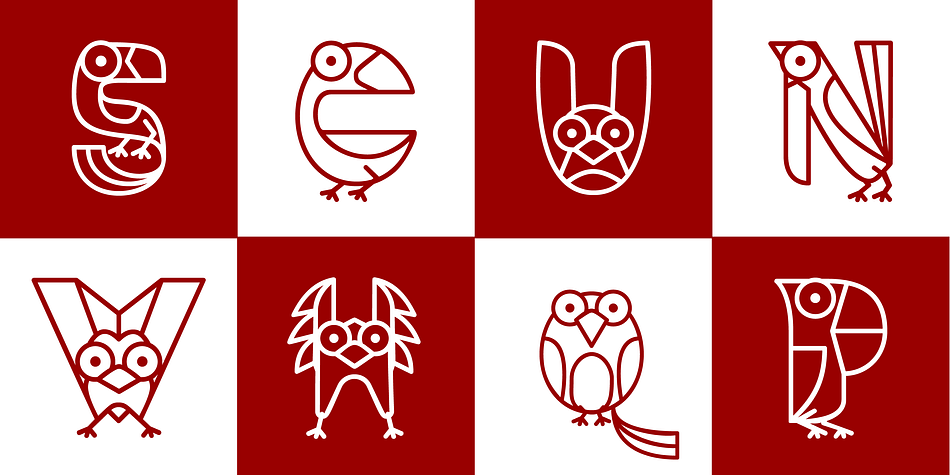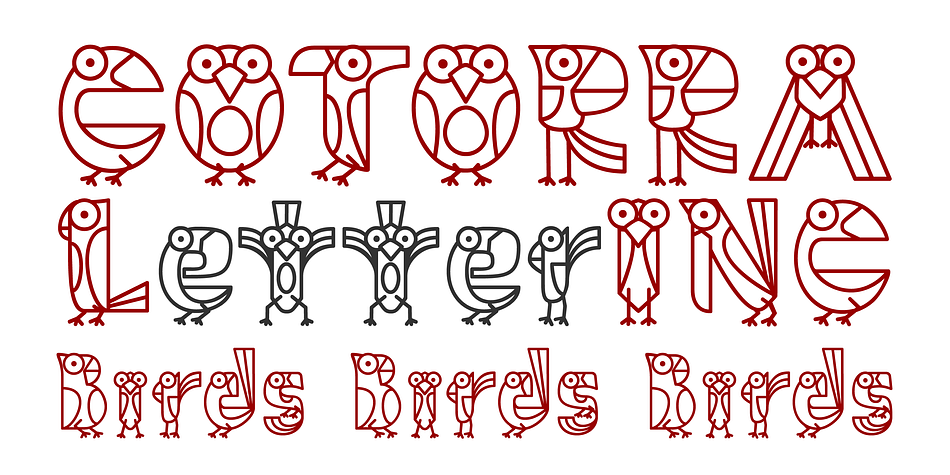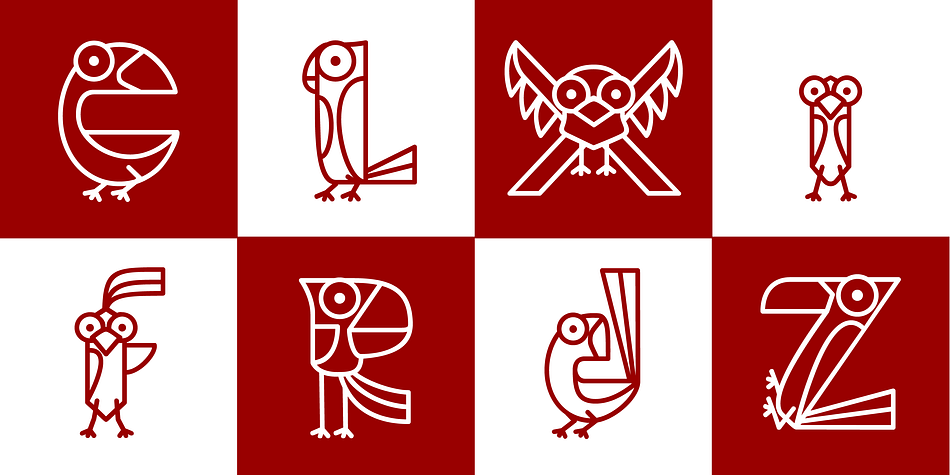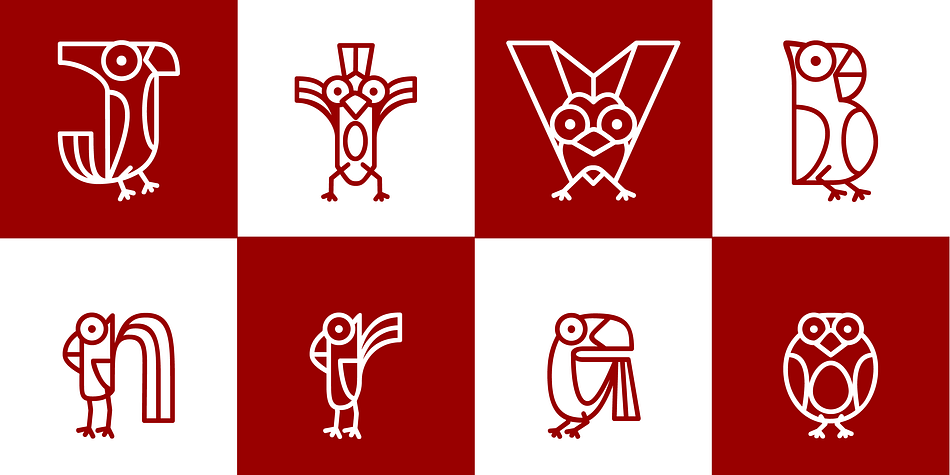
Designed by Miguel A. Contreras Cruz, Cotorra is a novelty font published by Letter INC.
Cotorra is a birdie font with a full character set ideal to write feathered messages. Part of the official selection of Tipos Latinos 2016, Latin American biennale of type design. Published by Letter INC.